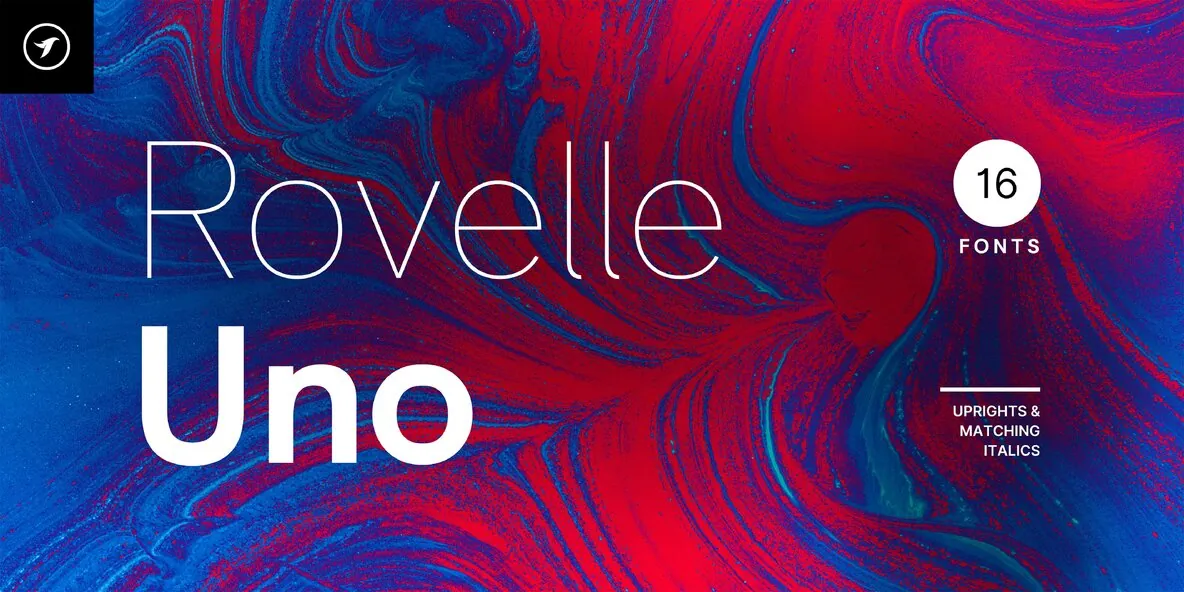
ROVELLE UNO — Geometry with Poise
ROVELLE UNO is a refined sans-serif typeface family designed with modern elegance, balanced geometry, and exceptional versatility. Its clean forms and carefully drawn details give text a polished typographic presence across print, screen, and brand communication.
Built for contemporary visual systems, ROVELLE UNO works naturally in brand identities, editorial design, interfaces, packaging, and wider communication programs. The family’s measured structure and clear sans-serif character support precise layouts while retaining a poised, modern tone for demanding design work.